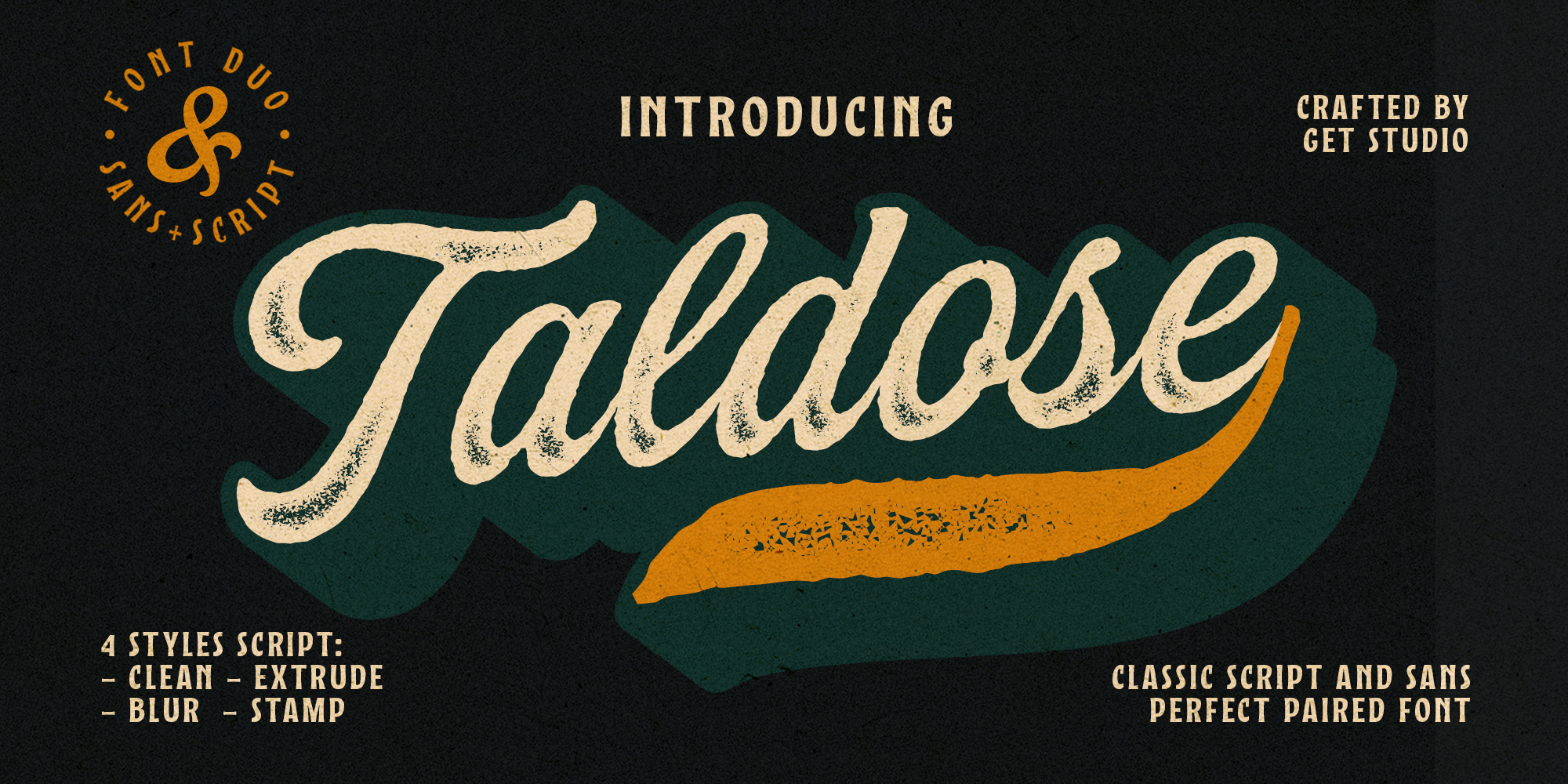
Taldose Script Font is perfect for elegant projects including luxury wedding invitations, high-end beauty brand logos, sophisticated fashion magazines, premium boutique signage, artisanal product labels, exclusive event materials, calligraphy-inspired artwork, and refined personal branding. This graceful typeface brings handwritten elegance and script sophistication to any design project.
What makes Taldose Script Font exciting is its exquisite capture of master calligraphy traditions through flowing letterforms that combine classical elegance with contemporary refinement. The beautifully crafted characters feature natural brush strokes and organic connections that create the authentic feel of skilled hand lettering while maintaining excellent readability. This font delivers the perfect balance of artistic expression and practical functionality that elevates any design to luxury status.
The Taldose Script Font family typically includes regular weight with script styling, complete uppercase and lowercase alphabets with natural connections, numerals, punctuation, and decorative flourishes. The design incorporates authentic calligraphic characteristics and elegant swashes that enhance the handwritten aesthetic. Premium versions may include stylistic alternates, decorative ligatures, and additional ornamental characters perfect for luxury and wedding applications.
Whether you're designing for luxury brands, wedding services, or elegant communications, Taldose Script Font Free Download delivers the sophisticated script beauty that creates unforgettable impressions. Its calligraphic presence makes it ideal for prestigious invitations and brand identities that need to convey refinement and personal attention. The font's script heritage ensures it communicates elegance and craftsmanship, making it perfect for any project requiring the distinguished aesthetic of master calligraphy and handwritten luxury.